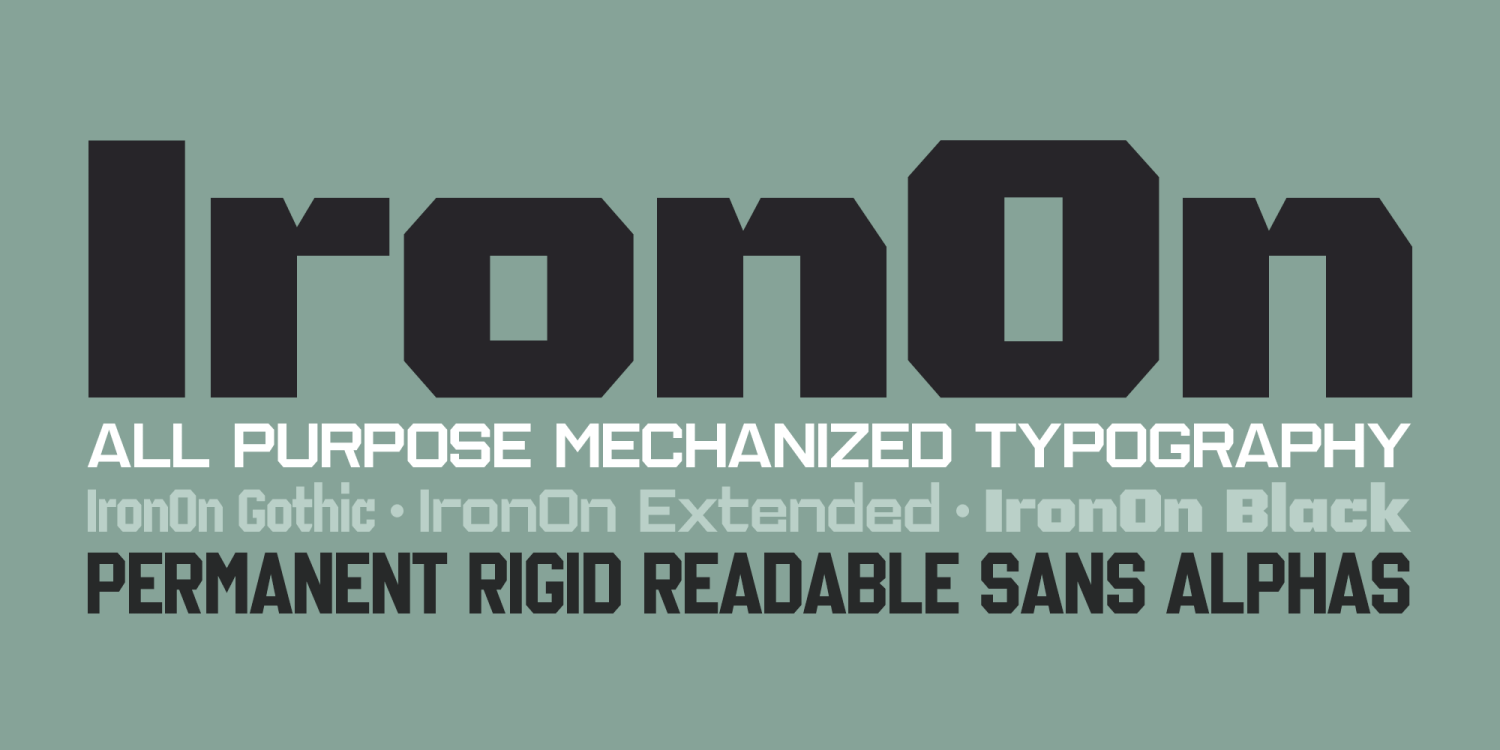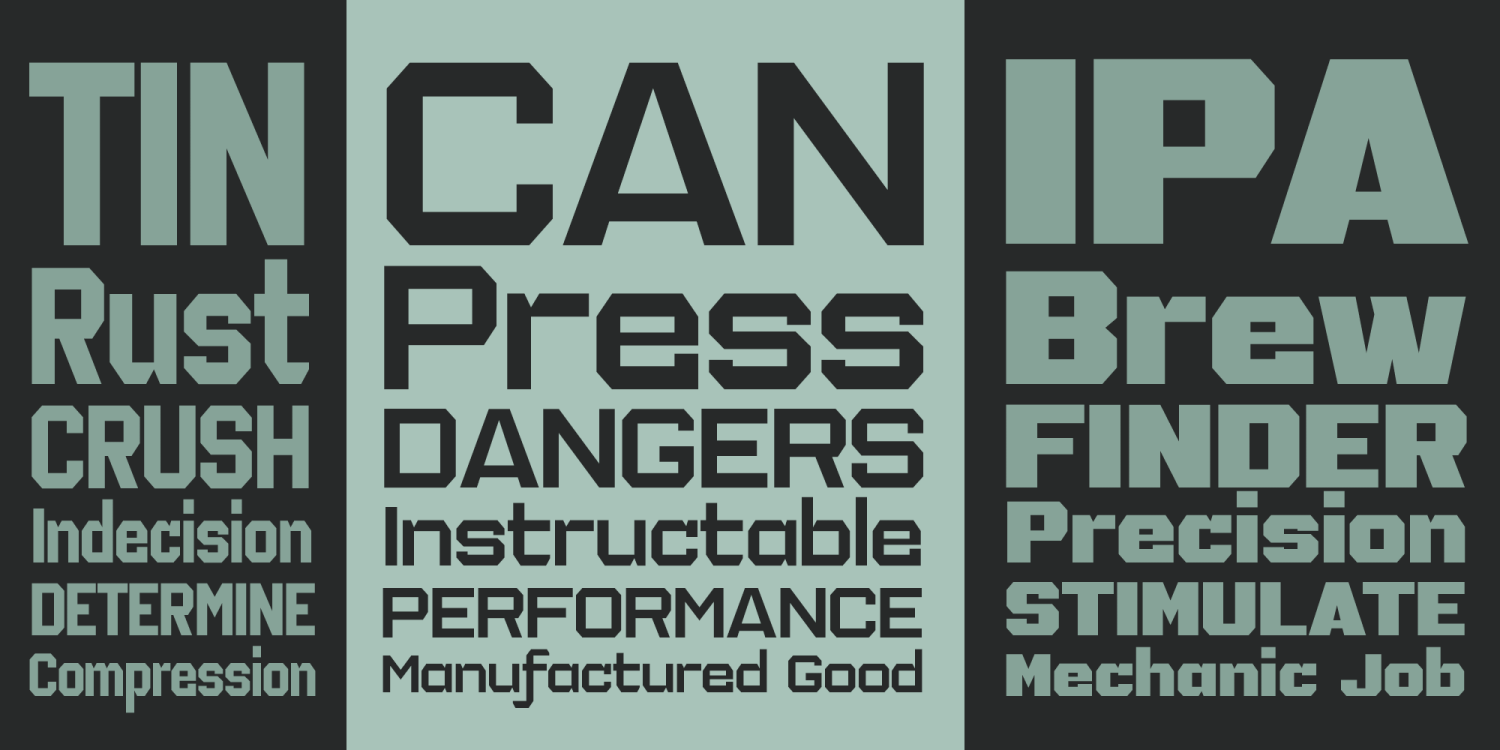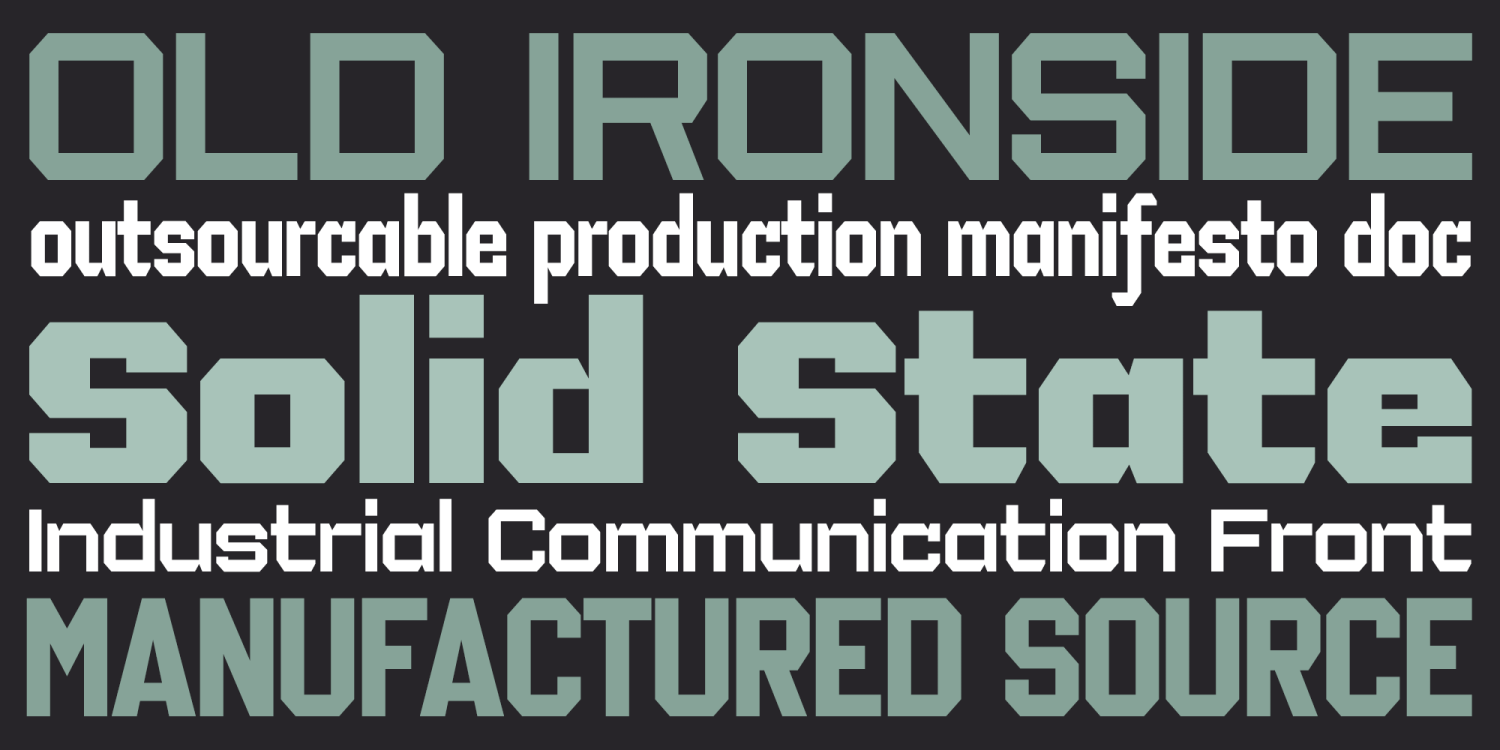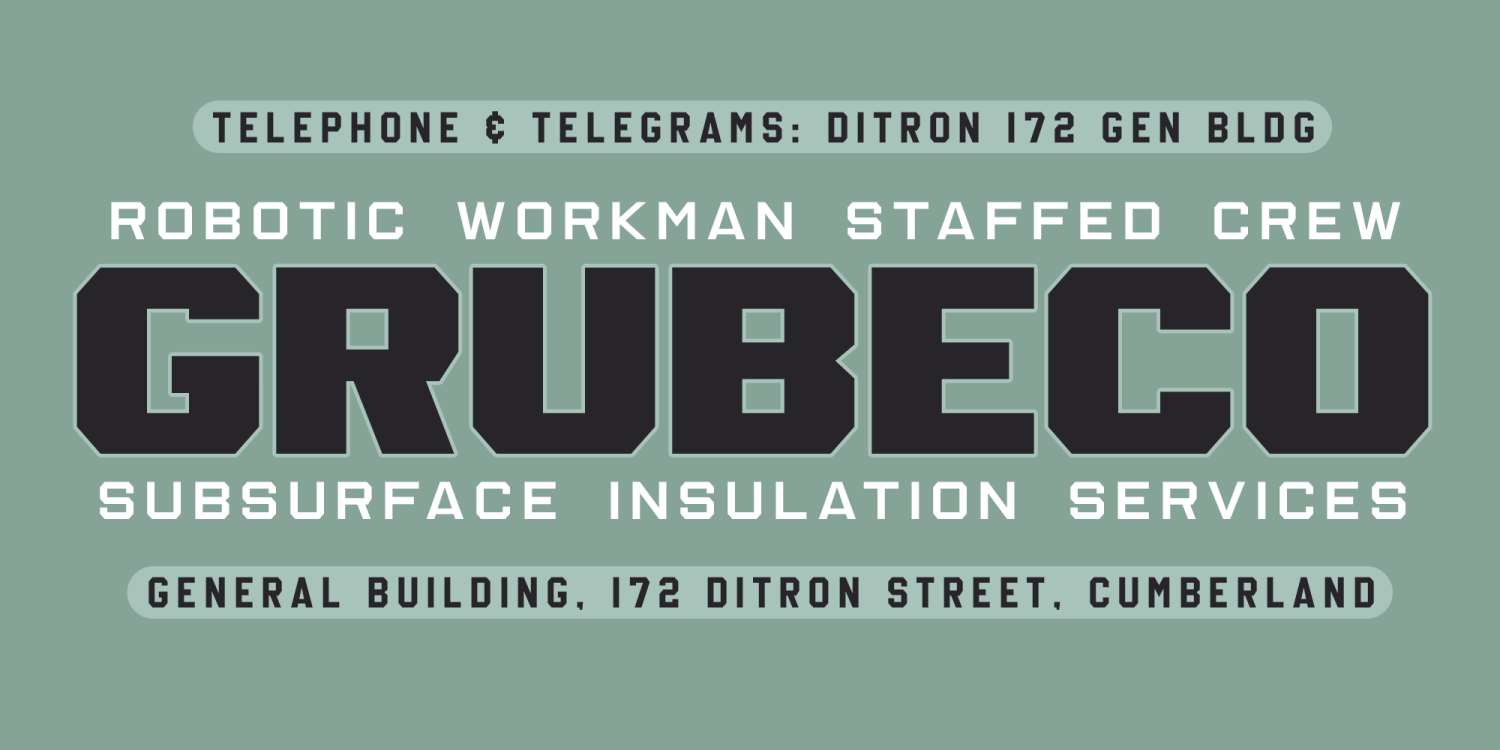
IronOn
IronOn is a collection of geometric display faces inspired by the bold iron-on T-shirt lettering of the 1970s, built to deliver rigid, mechanized impact with clean readability. The original spark came from a mysterious sample posted to the MyFonts “WhatTheFont” forums—similar in spirit to classic machine-era sans designs, but not traceable to any known typeface—so the letterstyle was rebuilt and expanded into a fresh, original family with an open, functional voice and a distinctly retro-industrial attitude.
IronOn includes three styles—Gothic, Extended, and Black—giving you a versatile range of widths and weights while keeping the same squared, engineered personality throughout. Unlike many heavy display families, IronOn includes both uppercase and lowercase, making it especially useful for real-world typography where you need big presence without being locked into all caps. The result is a powerful toolkit for packaging, apparel graphics, posters, advertising, brand systems, industrial signage, technical-themed layouts, and newsletter or editorial headlines that need a bold, manufactured feel with dependable clarity.